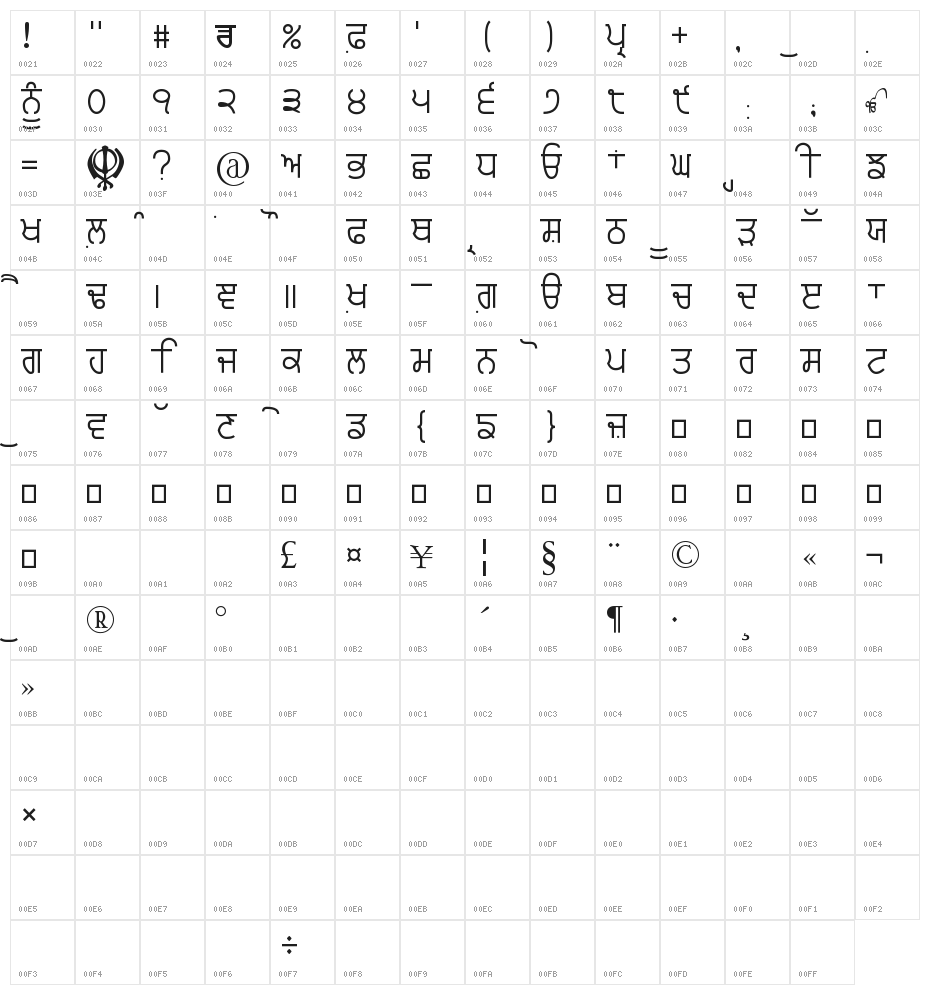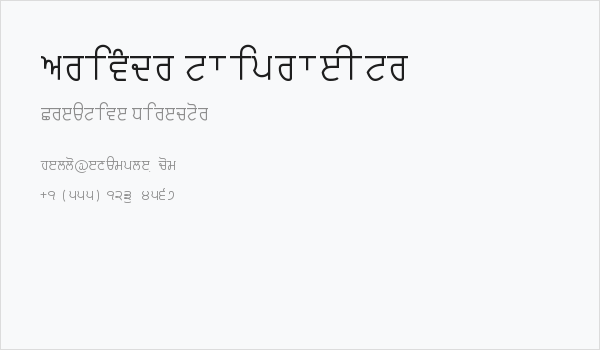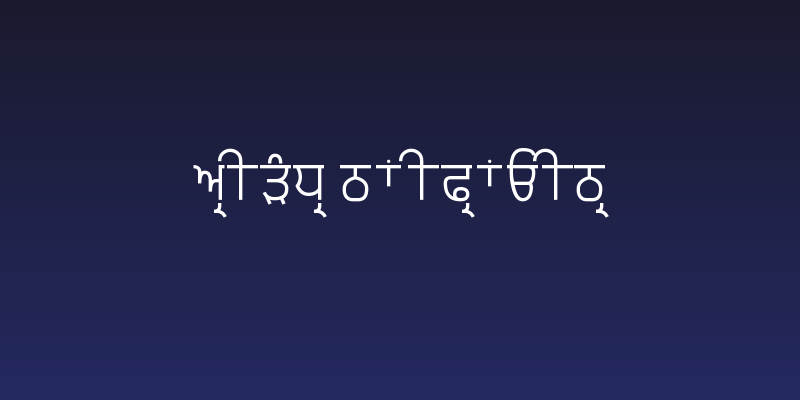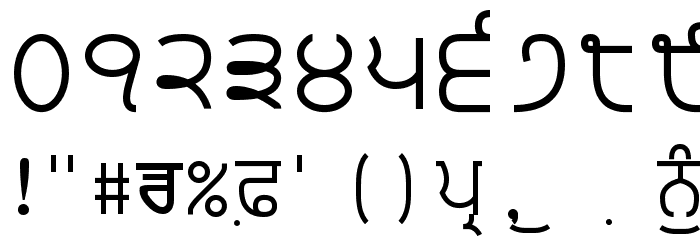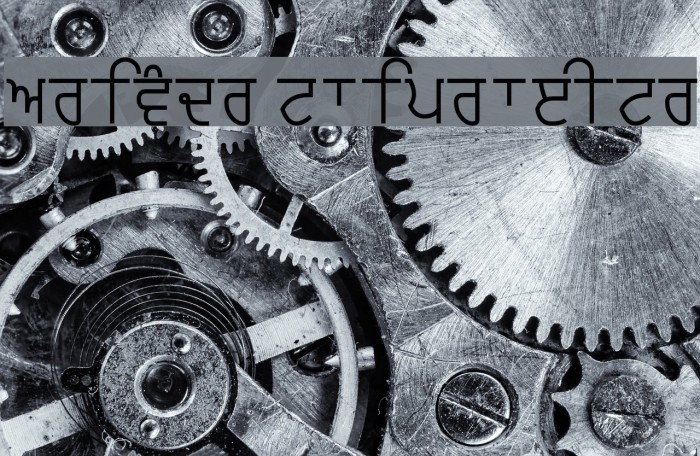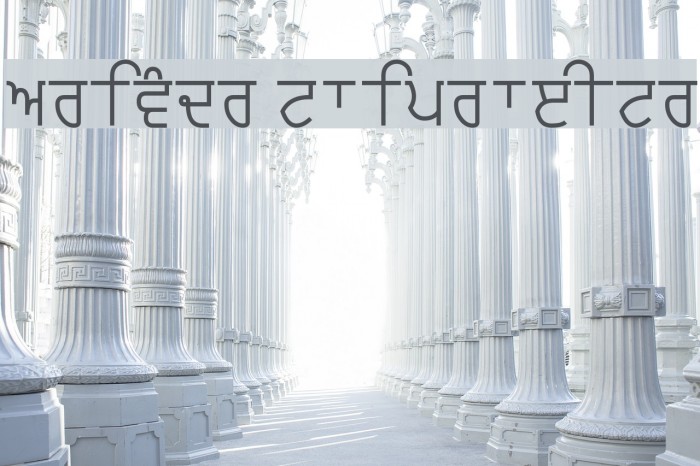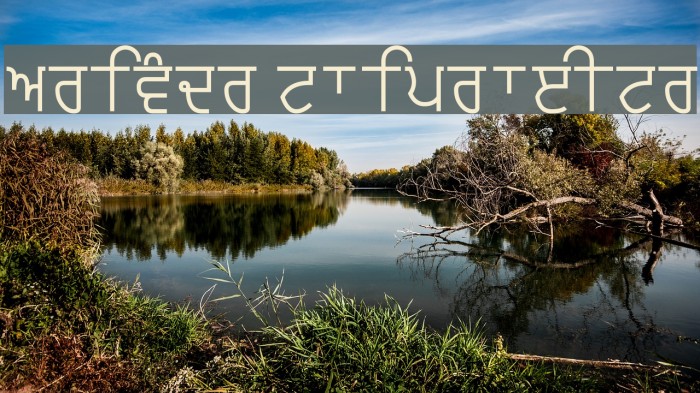
ArivMdr tfiprfeItr Font
ArivMdr tfiprfeItr Description
A clean and geometric Gurmukhi script font with uniform stroke thickness, open counters, and clear character separation, providing excellent legibility for both display and text use.
| Use Case | Headlines, Body text, Educational materials, Signage |
| Proposed Projects | Educational materials, signage, digital interfaces, headlines, and body text in Punjabi. |